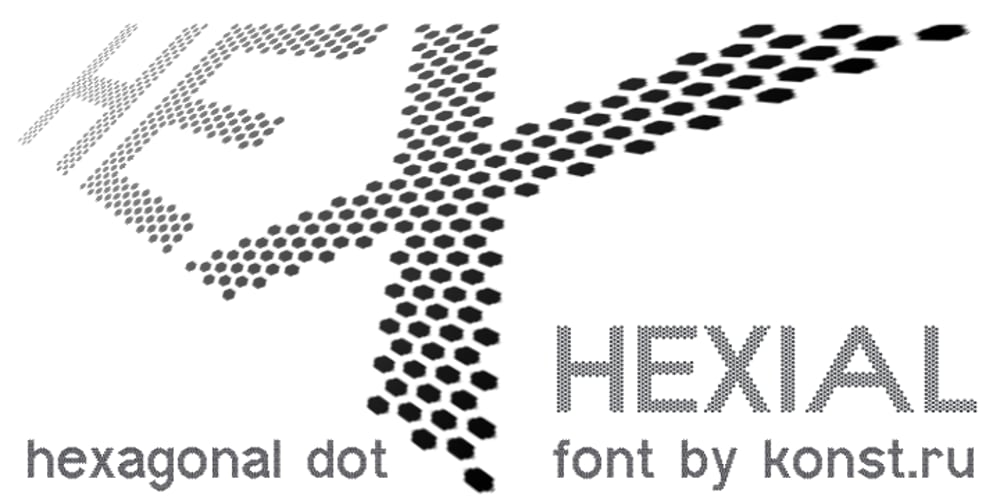
Hexial
Hexial font
Hexial Font Family was designed by Konstantin Boldovskiy and published by Konst.ru. Hexial contains 9 styles and family package options. Font with hexagonal dots for names, logotypes, titles, headers, topics etc. Big sizes of this font can be used for text on posters, t-shirts and other surfaces.